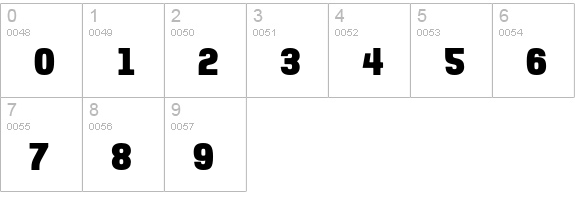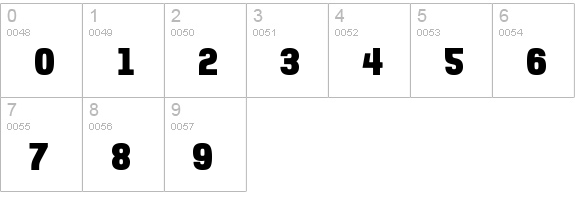
FauxCRA-ExtraBold is an extra-heavy, attention-grabbing variant in the FauxCRA typeface family \xE2\x80\x94 well suited to high-impact headlines, posters, and bold branding.
FauxCRA-ExtraBold is a modern and bold typeface that exudes strength and confidence. With its thick, striking lines and sharp edges, this font commands attention and makes a bold statement. Perfect for headlines, logos, posters, and any design that requires a strong and impactful look. And the best part? FauxCRA-ExtraBold is available for free download at FontsMarket.com. You can easily access this powerful font and enhance your projects with its unique style. Don't miss out on this incredible opportunity to elevate your designs with FauxCRA-ExtraBold!